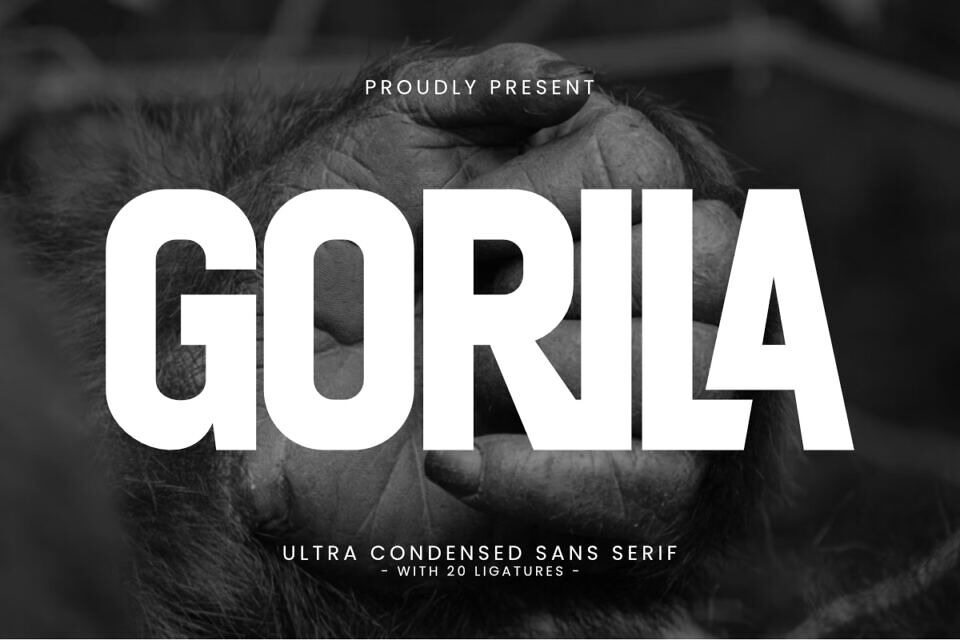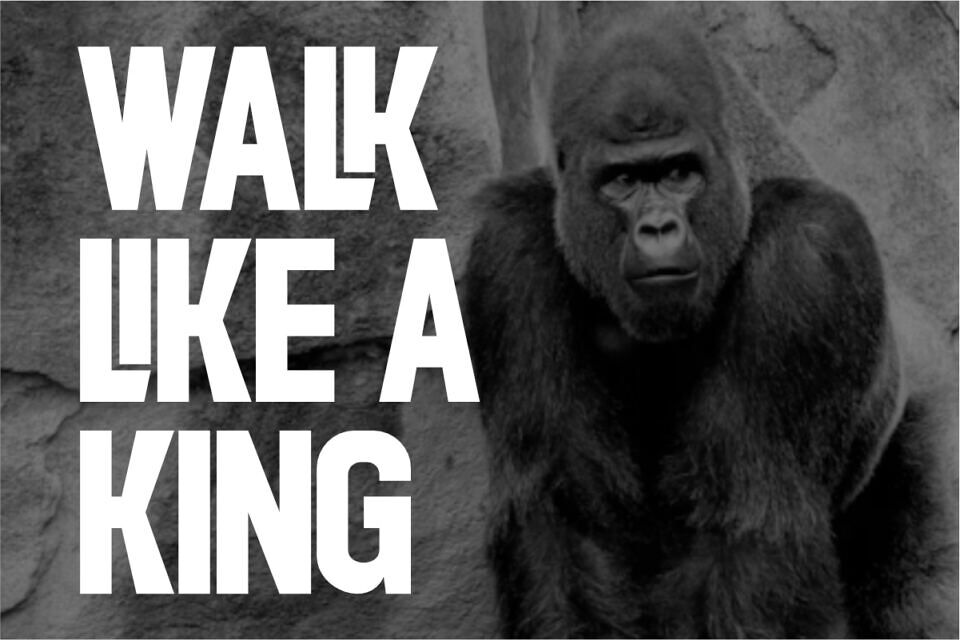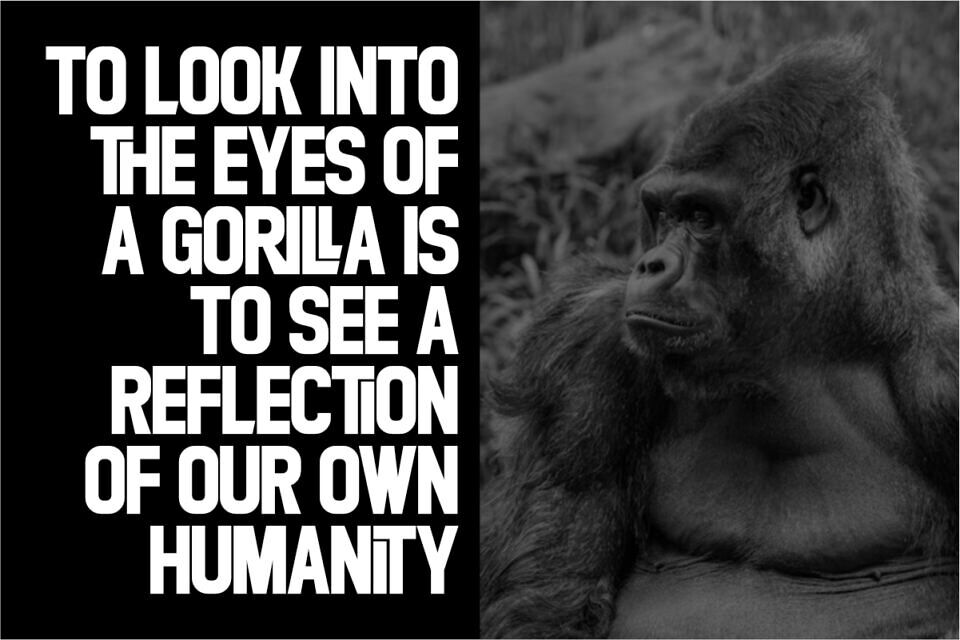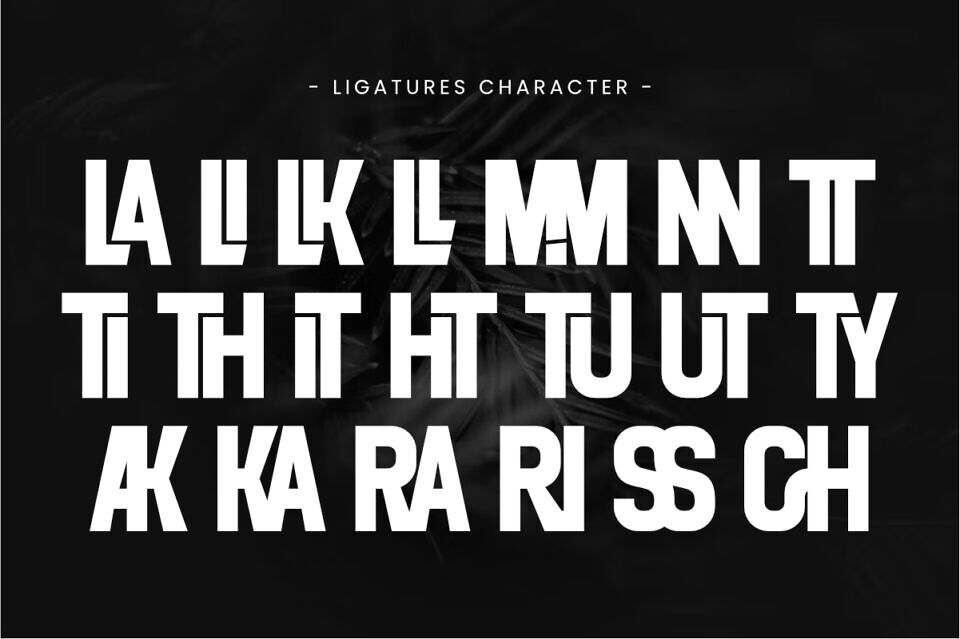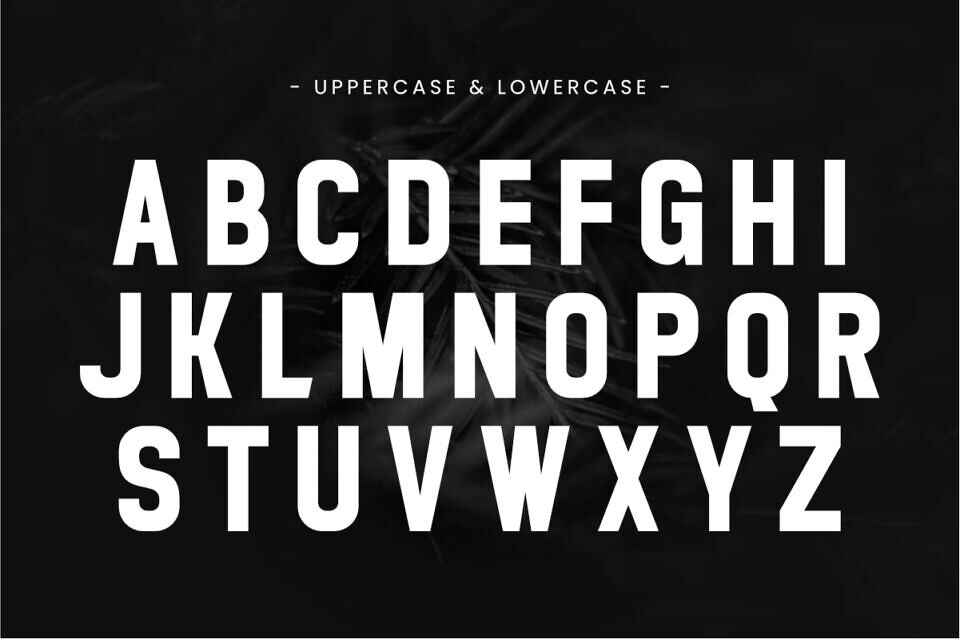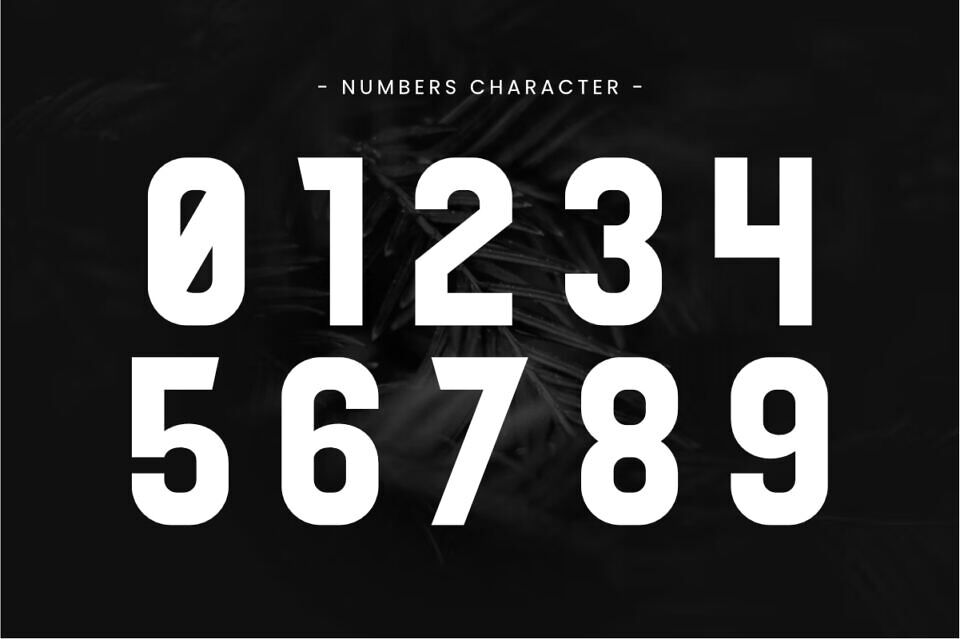
Gorila is an ultra-condensed sans serif font with bold, commanding strokes and 20 unique ligatures. Inspired by raw strength and modern aesthetics, Gorila is perfect for sports branding, streetwear logos, magazine covers, posters, gaming titles, and bold product packaging. Its heavy condensed style ensures maximum impact while keeping a sleek and professional look for any creative project.